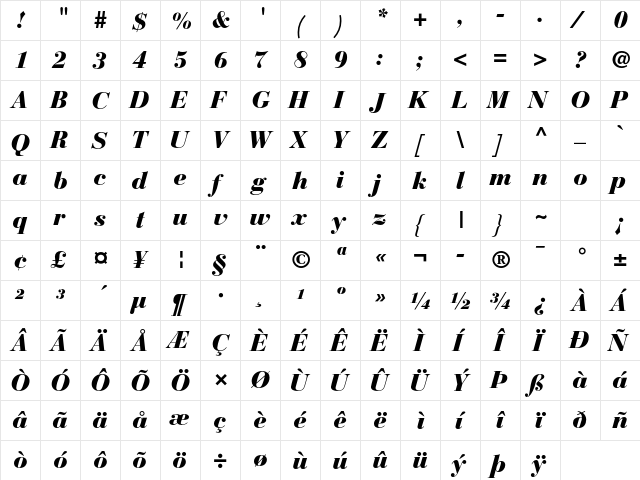
Bauer Bodoni Std 2 Black Italic
| Designer | Heinrich Jost, Louis Hڬl |
Design Context for Bauer Bodoni Std 2 Typeface
Bauer Bodoni Std 2 is a composed and adaptable typeface that performs quietly and consistently across a wide range of design contexts. The dynamic lean of this cut emphasises speed and emphasis in any layout.
Pro Tip: Use Bauer Bodoni Std 2 for emphasis, pull quotes, and subheadings where its slanted energy can add rhythm to the layout.